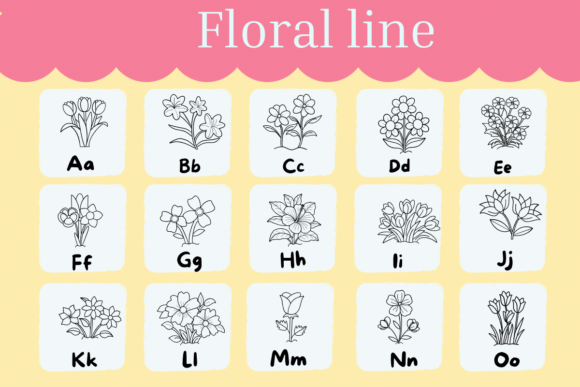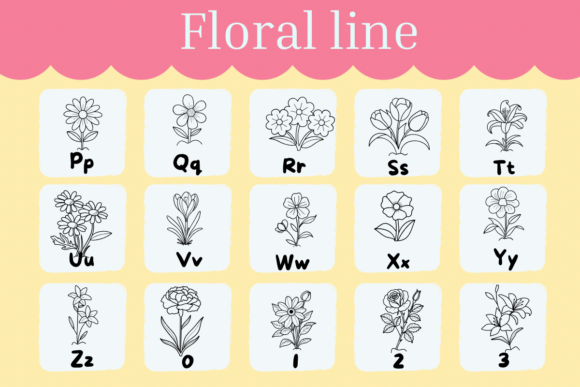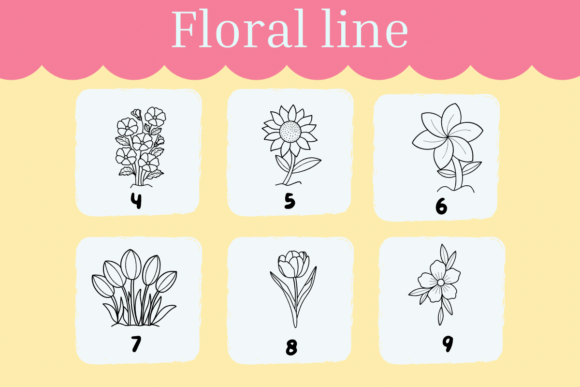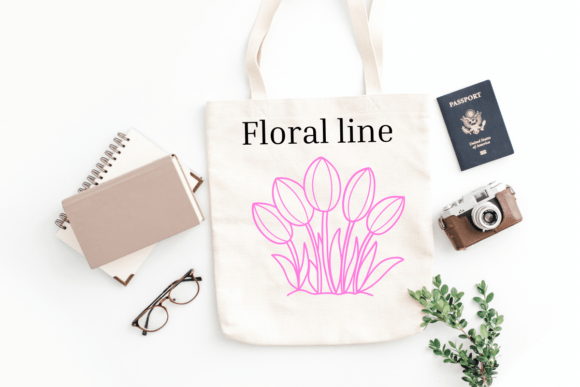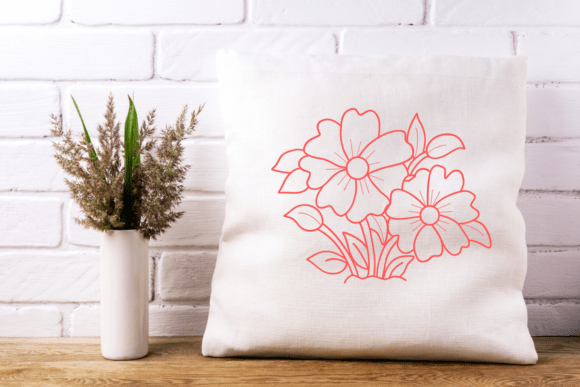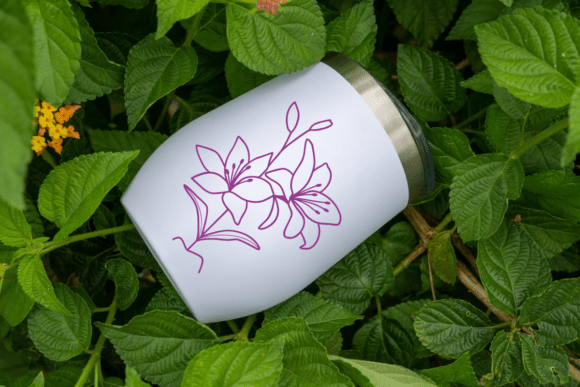
Introduction to Floral Line Font
Add a delicate touch of nature to your digital canvas with Floral Line, a charming set of Dingbates fonts.
This collection features 14 unique, hand-drawn botanical illustrations that capture the simple beauty of a blooming garden Whether you are looking for elegant tulips, classic lilies, or whimsical wildflowers, these line-art icons provide a versatile and artistic way to enhance your typography and branding projects.
Key Features of Floral Line Font
Why Choose Floral Line Font?
Floral Line Font offers exceptional quality and versatility, making it a valuable addition to your design toolkit. Whether you’re creating for personal projects or commercial use, Floral Line Font delivers professional results.